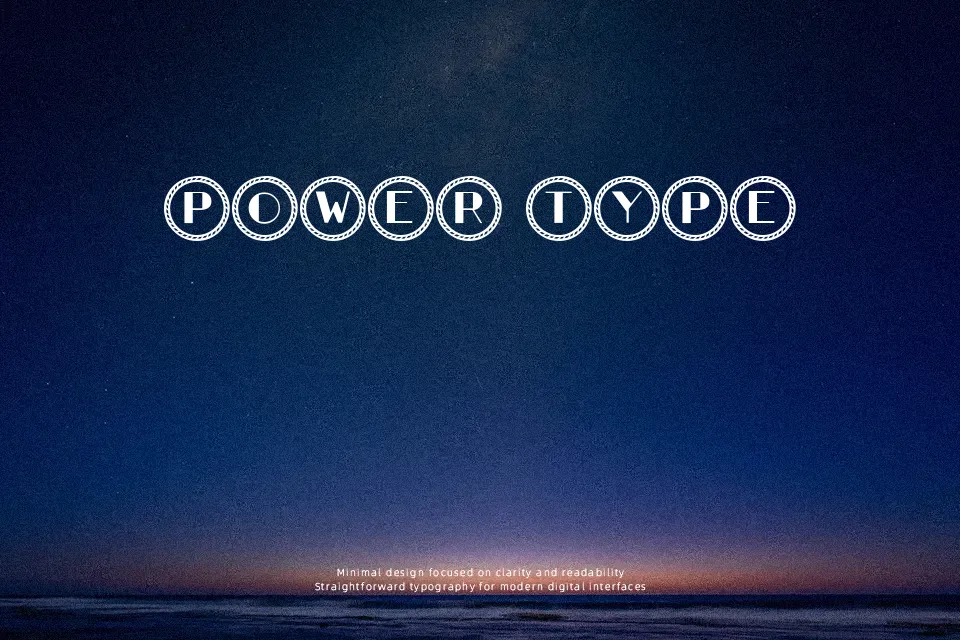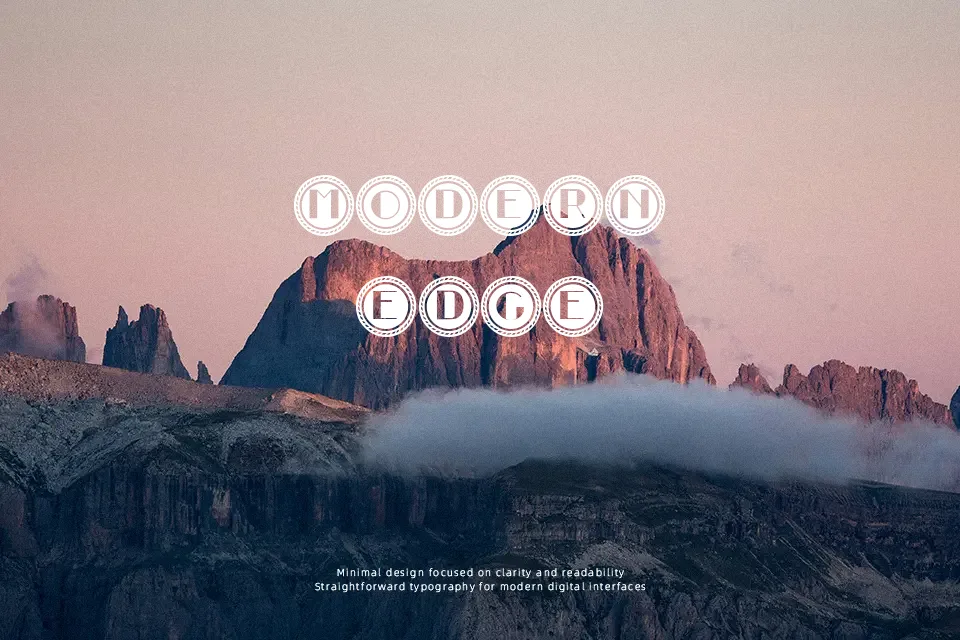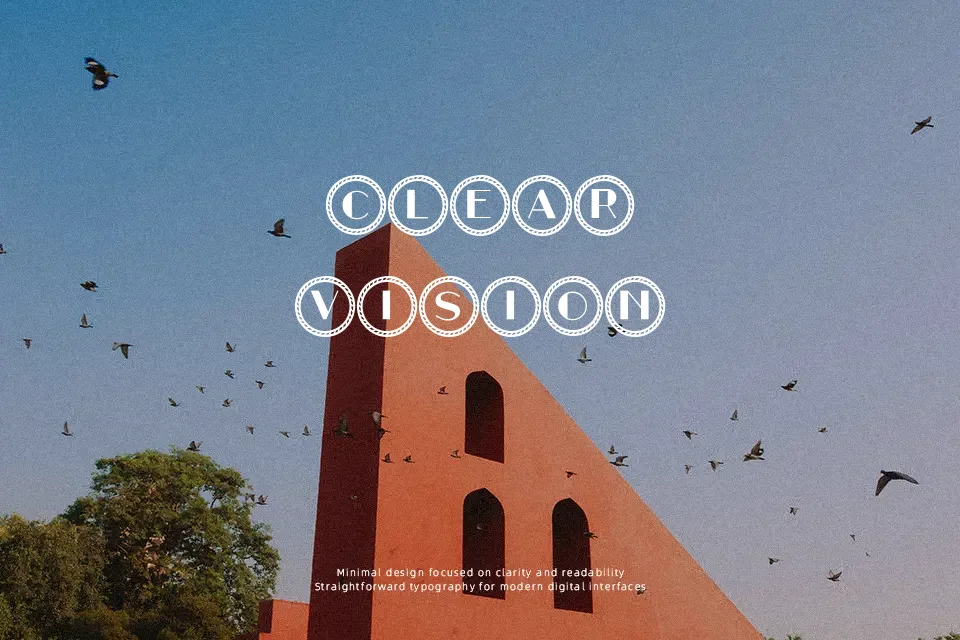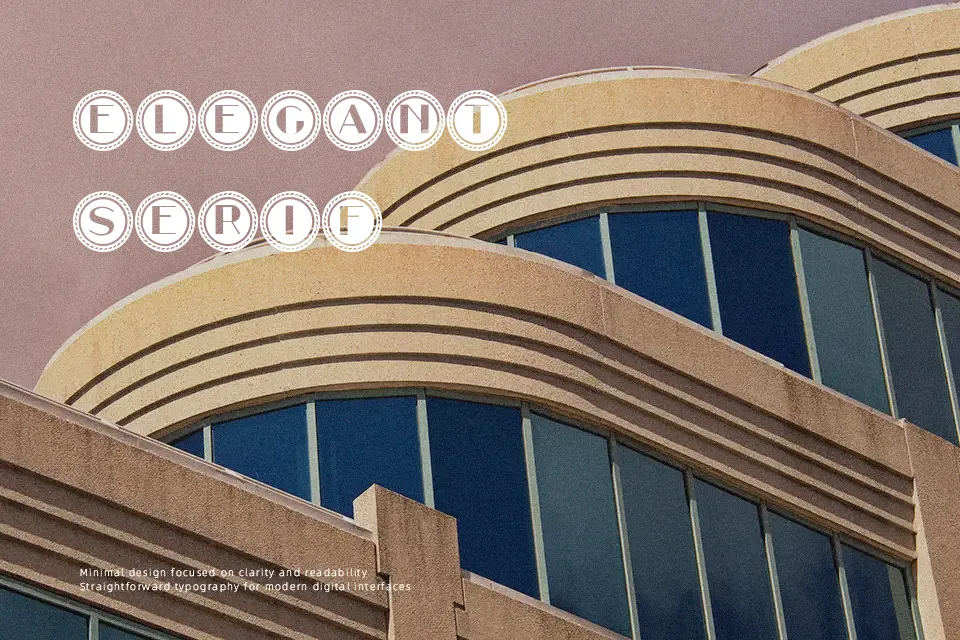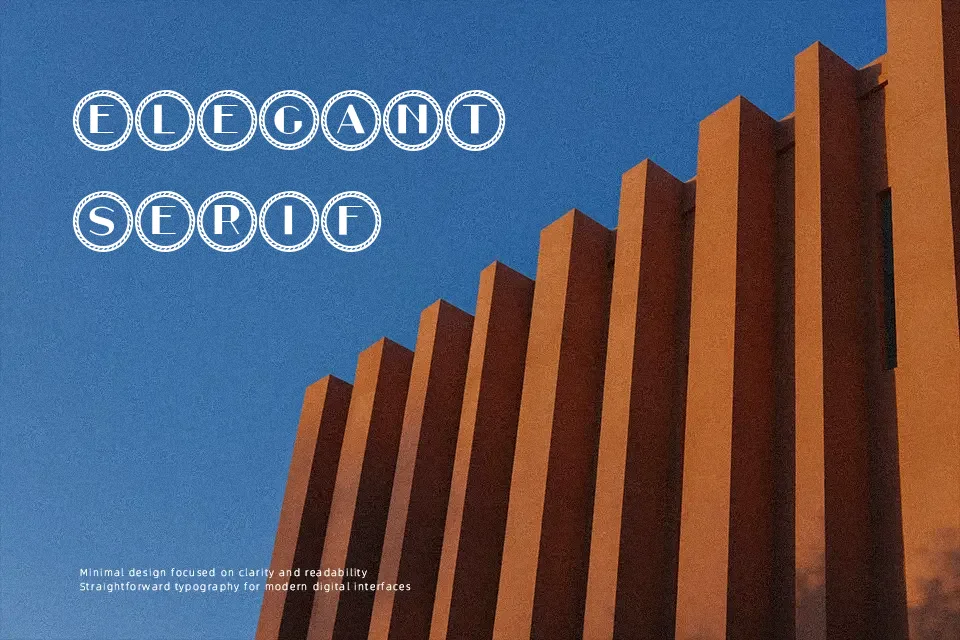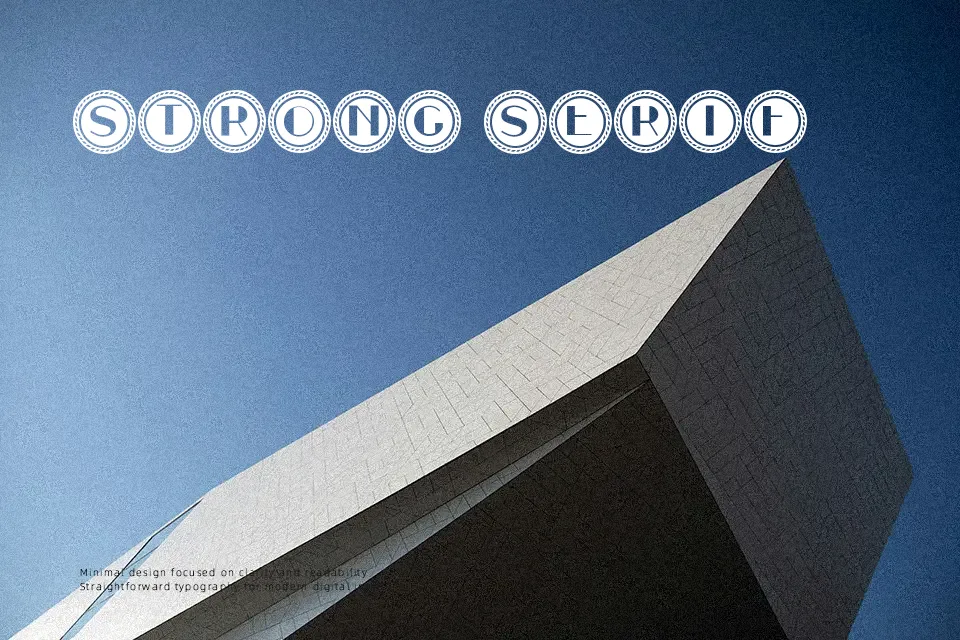
Tundra Font
Tundra Font presents a highly stylized display structure built around bold geometric curves and circular motifs. Uniform stroke weights define each character, paired with wide, balanced proportions that emphasize symmetry across the uppercase glyph set. Generous spacing between glyphs prevents the intricate concentric shapes from colliding, preserving distinct contours in isolated arrangements. The letterforms deliver immediate artistic impact when deployed in display environments such as event posters, custom logotypes, and merchandise packaging. However, the elaborate interior line work reduces legibility at reduced scales, making the typeface impractical for continuous body text or compact interface labels where dense letterforms blur together.
Best For: poster headlines, monogram logos, vinyl record covers, event banners
Not Ideal For: body text paragraphs, mobile app ui labels, legal disclaimers, editorial book copy